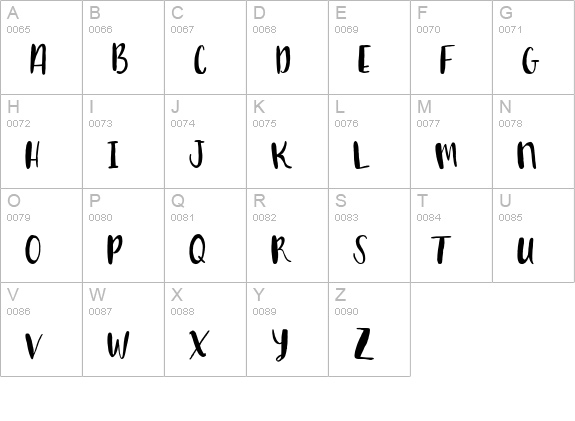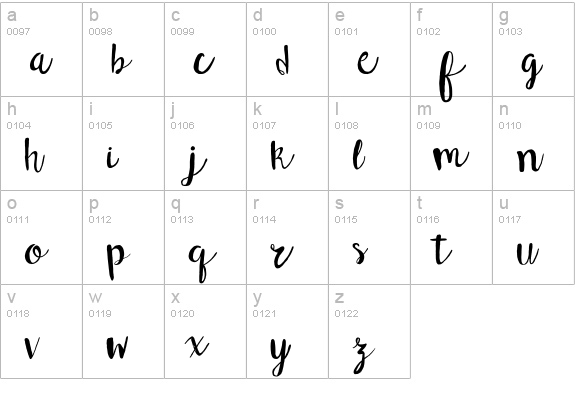
Introducing Tallulah font, a beautifully elegant typeface that exudes sophistication and charm. With its delicate curves and graceful lines, Tallulah is perfect for adding a touch of luxury to your design projects. Whether you're creating wedding invitations, branding materials, or social media graphics, this font will elevate your designs to the next level. What's even better is that Tallulah font is completely free to download! You can get your hands on this stunning typeface at FontsMarket.com, where it is available for instant download. Don't miss out on the opportunity to enhance your designs with the timeless beauty of Tallulah font. Download it today and let your creativity soar.